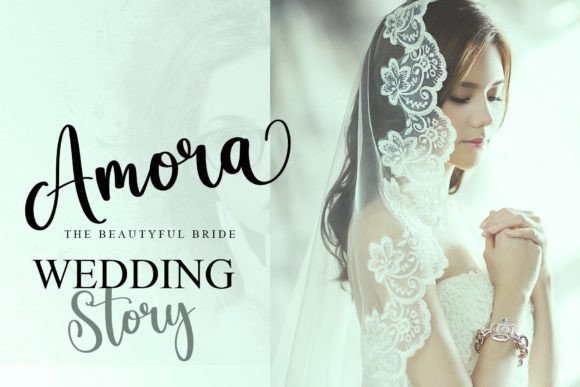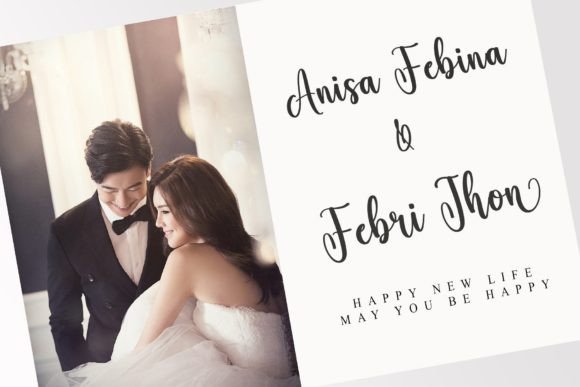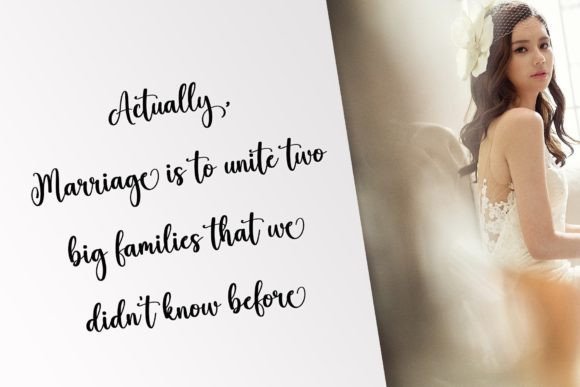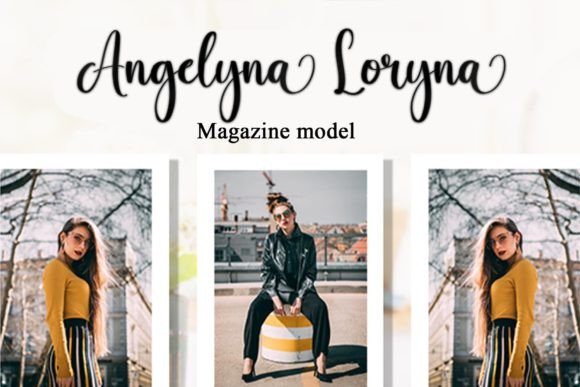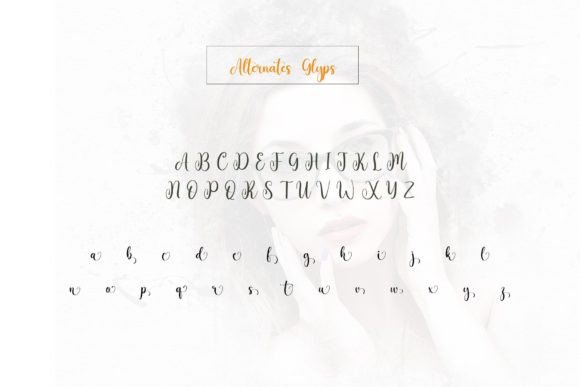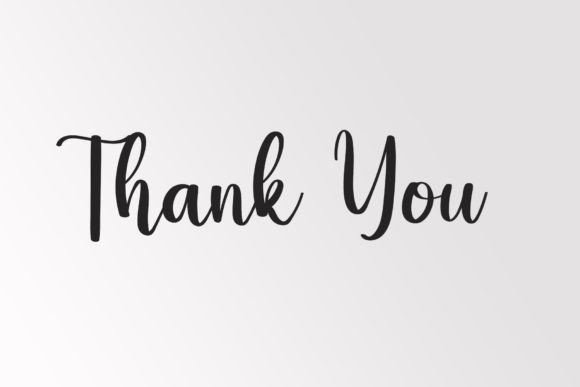
Introducing Hand Button Font: Elevate Your Designs with Elegance
Are you a designer, crafter, or DIY enthusiast looking for a font that can add a touch of magic to your creative projects? Look no further than Hand Button Font, a beautiful script font that combines elegance with a playful twist. In this article, we’ll dive into the world of Hand Button Font, exploring its features, benefits, and uses, and why it’s the perfect addition to your font collection.
What is Hand Button Font?
Hand Button Font is a carefully crafted script font that boasts a unique blend of sophistication and whimsy. Its elegant strokes and flowing lines make it perfect for a wide range of creative projects, from Instagram posts and social media graphics to calligraphy scripts and DIY crafts. With Hand Button Font, you can turn any idea into a stunning piece of art that captures the imagination.
Key Features of Hand Button Font
- Elegant Script Style: The font’s script style is both elegant and playful, making it perfect for a wide range of projects, from formal invitations to social media graphics.
- Magical Ligatures: Hand Button Font comes with a range of magical ligatures that add an extra touch of whimsy to your designs.
Benefits of Using Hand Button Font
- Adds a Touch of Elegance: Hand Button Font adds a touch of sophistication to any design, making it perfect for projects that require a bit of luxury and glamour.
- Versatile: The font is incredibly versatile, making it suitable for a wide range of projects, from digital designs to print materials.
- Unique: The font’s unique style and ligatures ensure that your designs stand out from the crowd.
Uses of Hand Button Font
Hand Button Font is perfect for a wide range of creative projects, including:
- Instagram and Social Media Graphics: Add a touch of elegance to your social media posts and stories with Hand Button Font.
- Calligraphy Scripts: Use the font to create stunning calligraphy scripts for DIY projects, such as wedding invitations and greeting cards.
- DIY Crafts: Add a personal touch to your DIY crafts, such as scrapbooking and journaling, with Hand Button Font.
- Branding and Packaging: Use the font to create unique and eye-catching branding and packaging designs.
Tips for Using Hand Button Font
Here are a few tips for getting the most out of Hand Button Font:
- Experiment with Different Sizes: Play around with different font sizes to create visual interest and hierarchy in your designs.
- Mix and Match: Combine Hand Button Font with other fonts to create unique and eye-catching designs.
- Use the Glyphs and Ligatures: Take advantage of the font’s glyphs and ligatures to add an extra touch of whimsy to your designs.